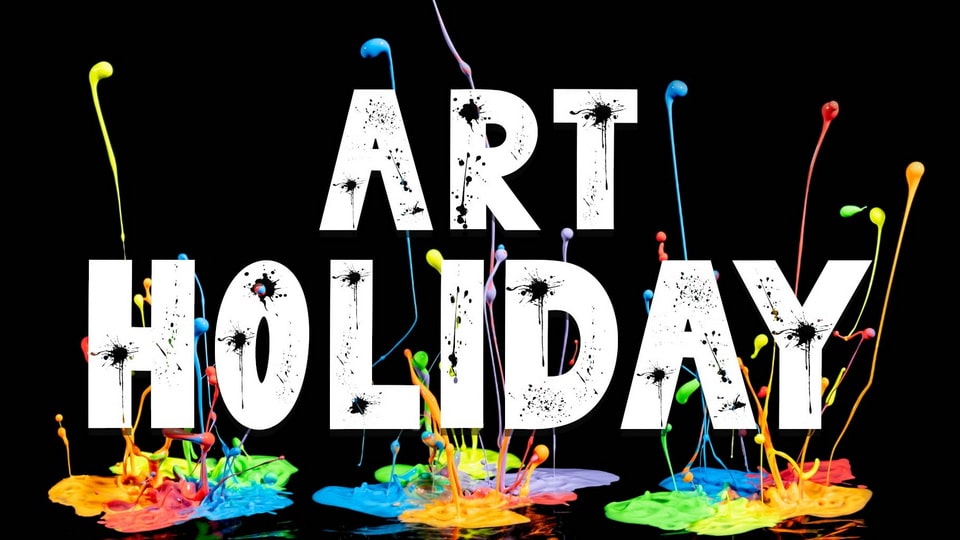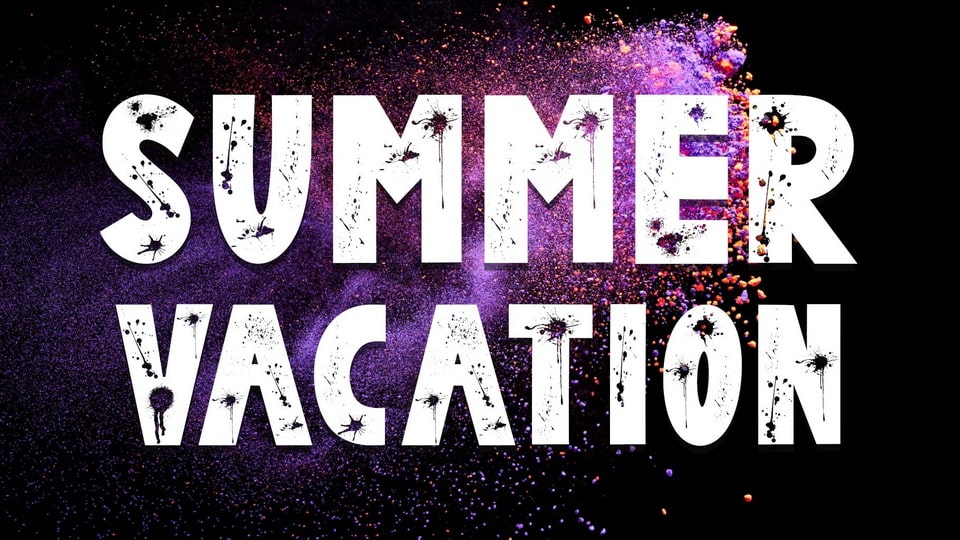
Bomber Spray is a display font with a spray paint pattern. This font is equipped with uppercase, lowercase, numerals, punctuations and multilingual support.
Very suitable for use for easter, spring, summer, Halloween, posters, prints, branding, stickers, logos, banners and others.